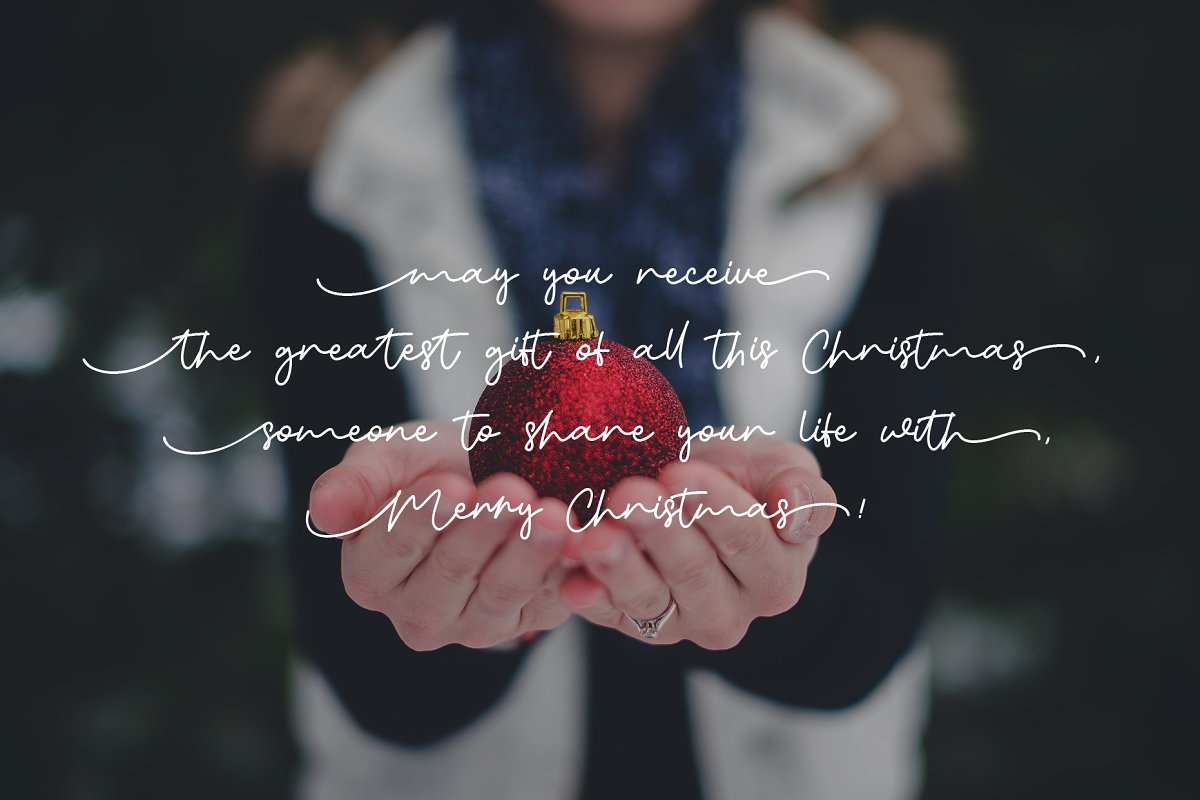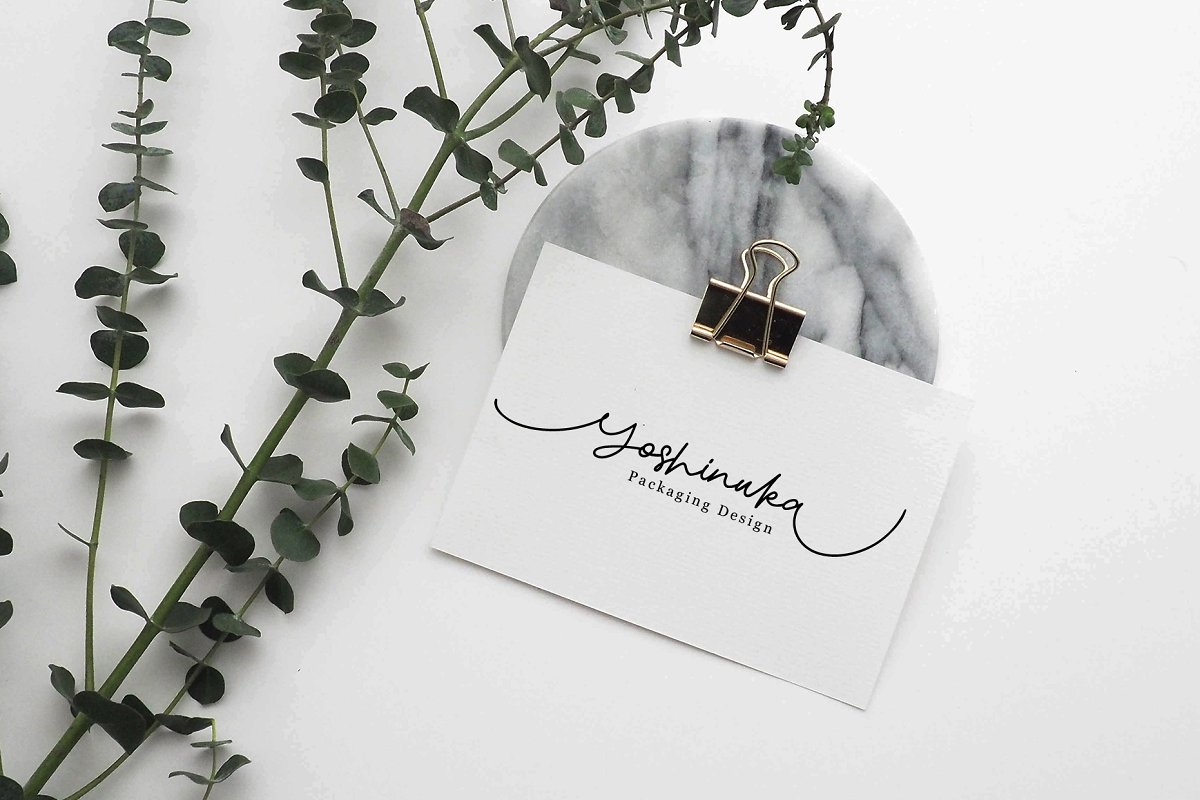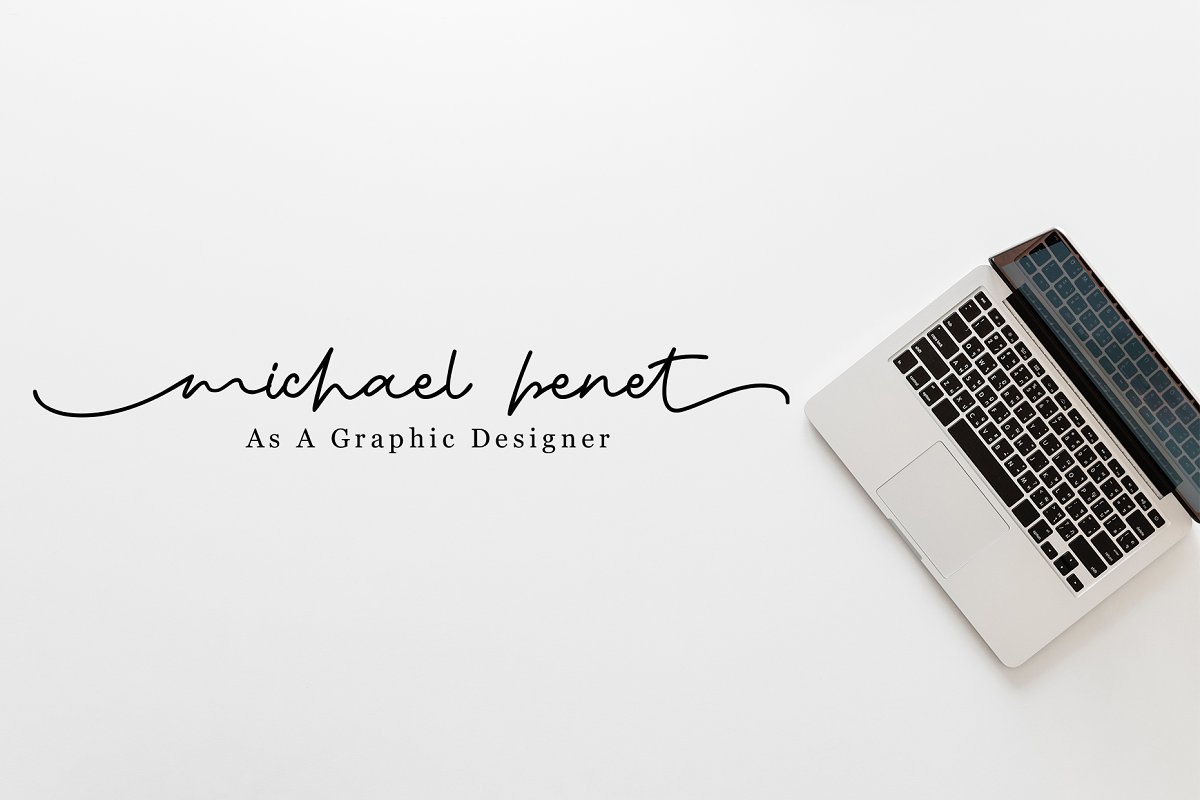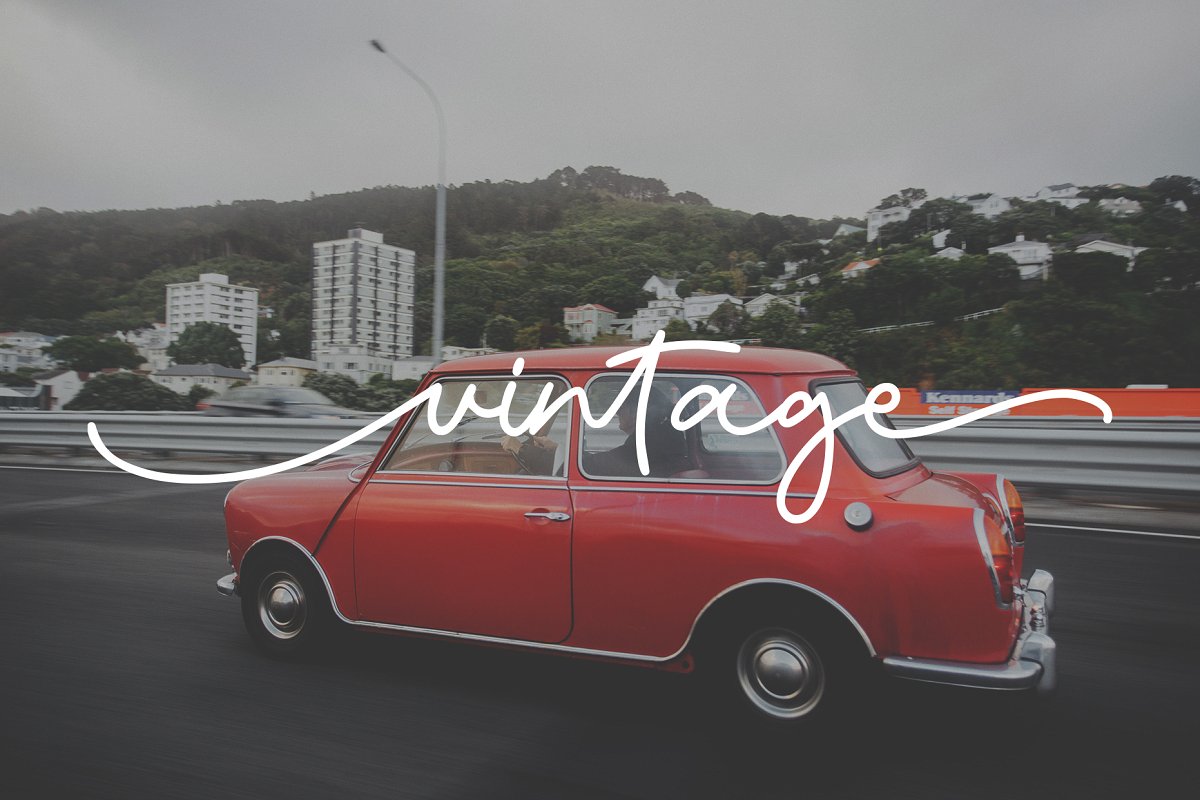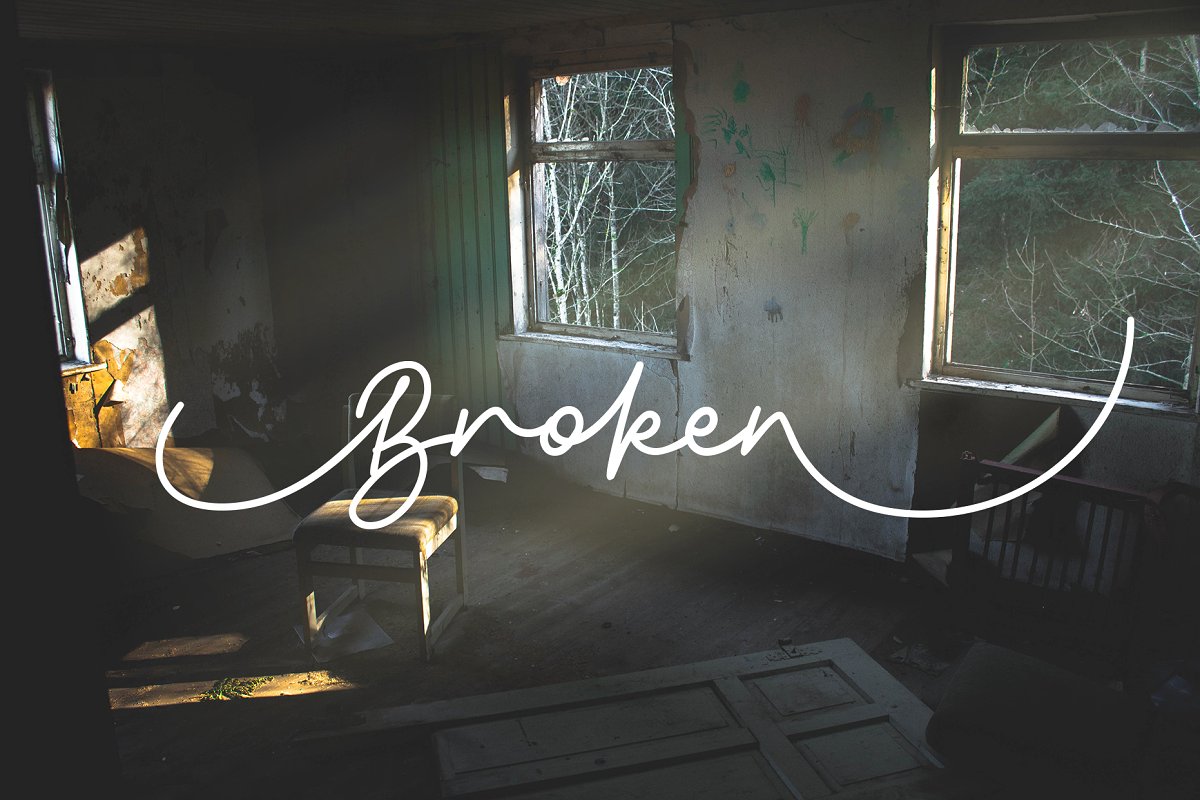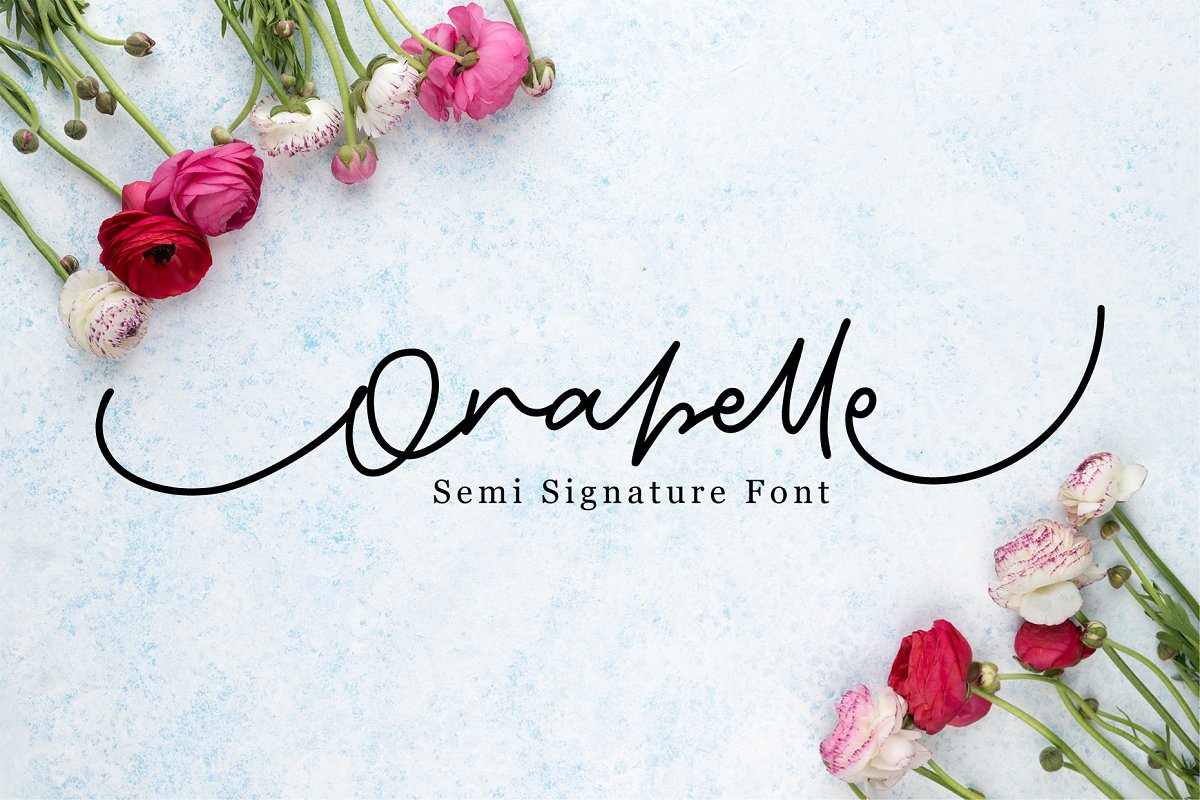
Orabelle Font
introduce this font I just uploaded, called “Orabelle Semi Signature Fonts”
I developed this font with the previous font, “Sweet Beaches“, can check here  I developed the previous font so that it was like a signature. For more details, see the font product photo.
This font can be used for logo, branding logo, packaging logo, video title, invitations, quotes, cards, greeting cards, business cards and many more.